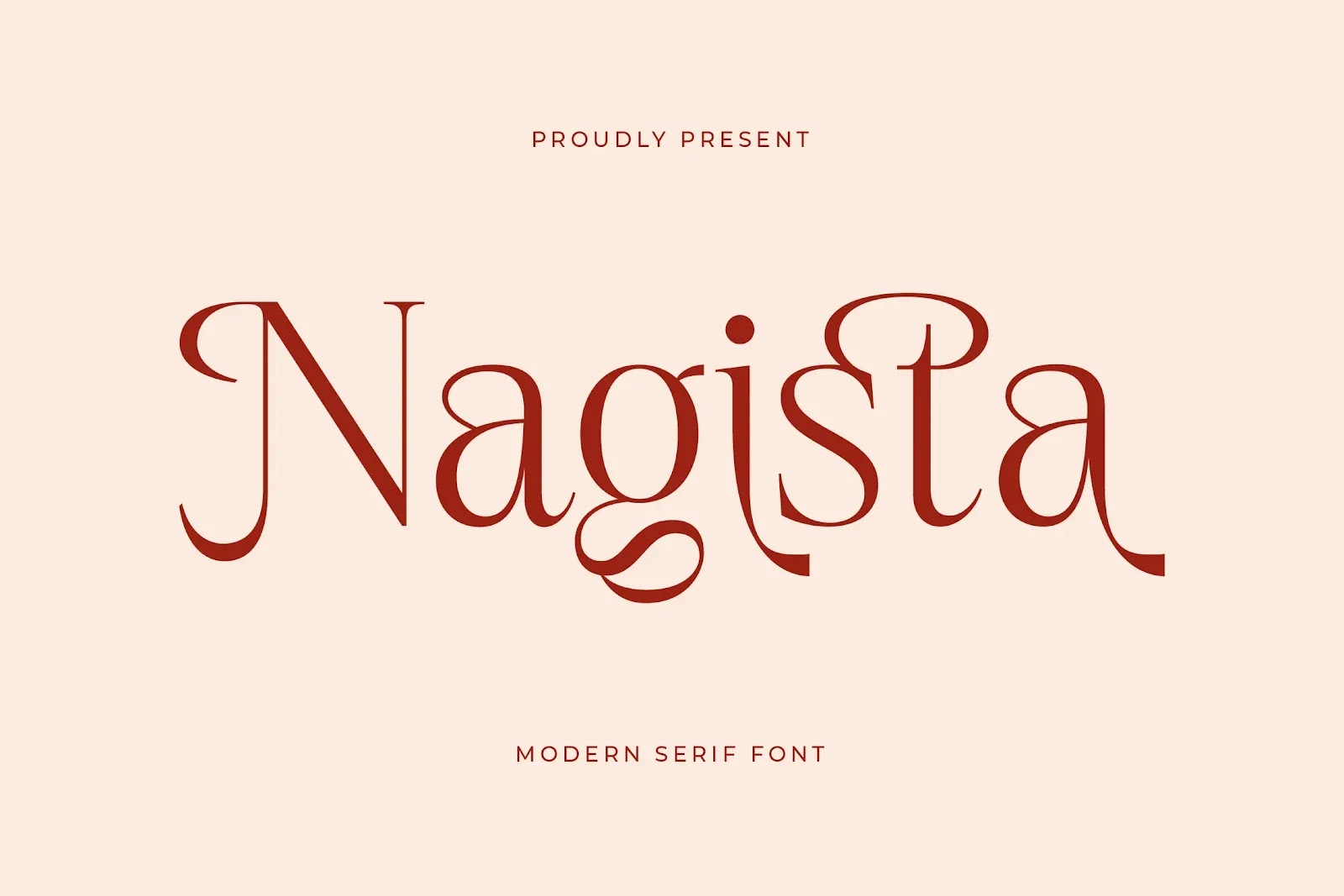
Nagista Font is a luxury serif typeface that radiates elegance, making it an exceptional choice for high-end and sophisticated design projects. With its refined letterforms and graceful serif details, this font brings a timeless charm that complements both classic and modern aesthetics. Whether you're crafting a brand identity or designing eye-catching visuals, Nagista Font delivers a polished, luxurious presence.
Perfect for logos, branding projects, and stylish homeware designs, Nagista Font also enhances product packaging, mugs, posters, quotes, and t-shirt prints with its upscale character. From book covers and shopping bags to name cards, invitation cards, greeting cards, and labels, this font adds a touch of class and distinction to any creative endeavor.
Ideal for photography watermarks, elegant marketing materials, and memorable special events, Nagista Font ensures your work stands out with sophistication and clarity. Whether used in digital or print formats, this versatile serif font provides the perfect balance of beauty and professionalism for all your luxury-themed design needs.